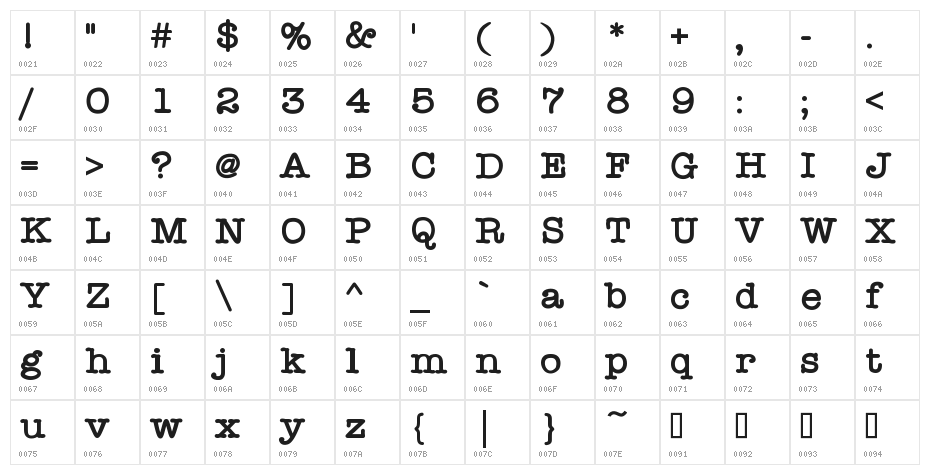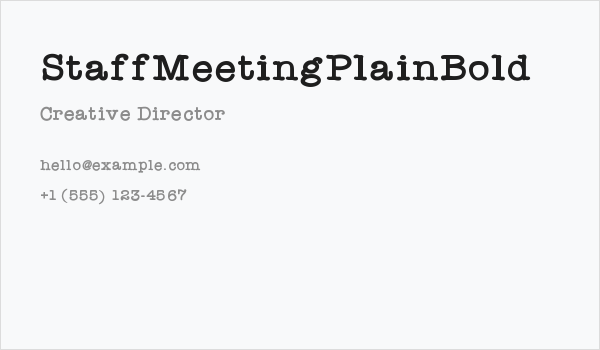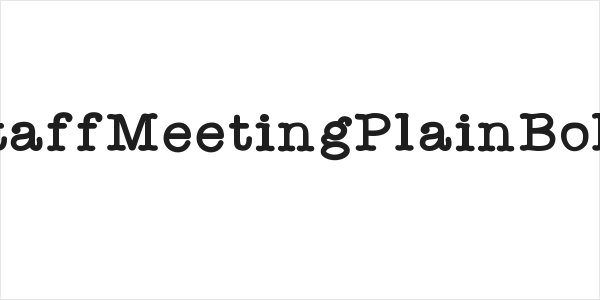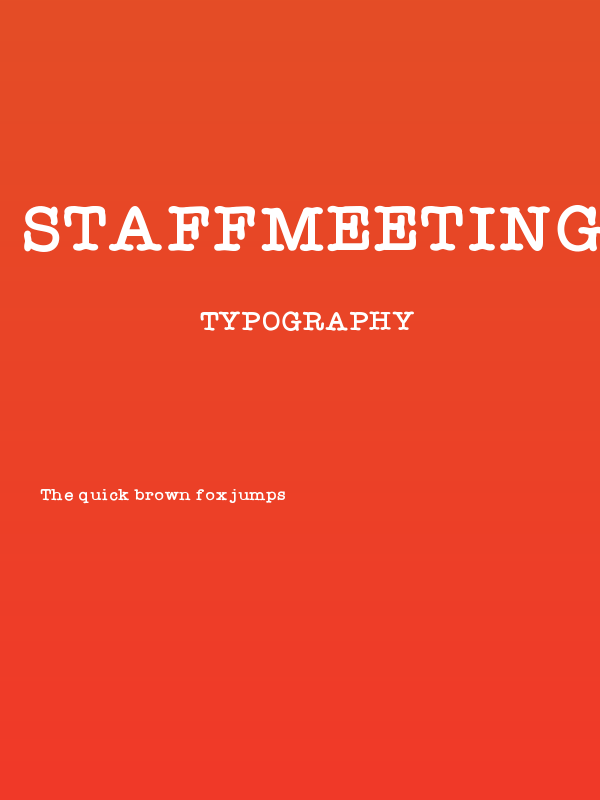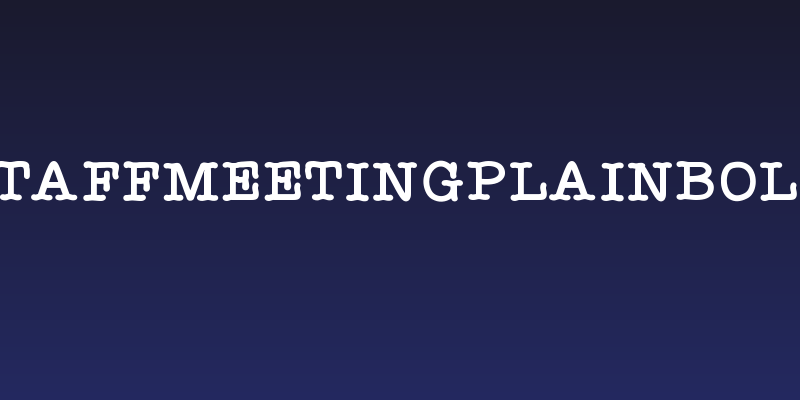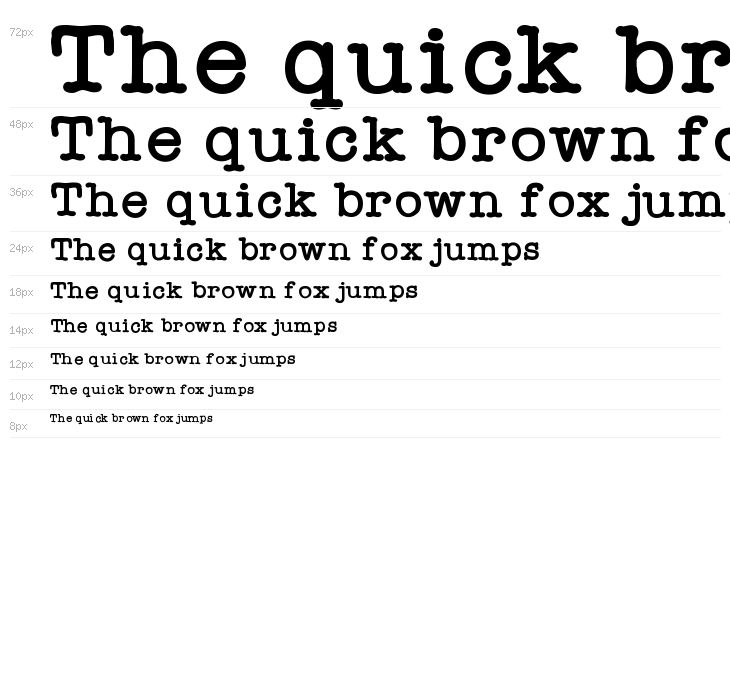
StaffMeetingPlainBold Font
StaffMeetingPlainBold Description
This font exhibits a bold and robust slab serif style, characterized by thick, block-like serifs that give it a strong and authoritative presence. The letters are evenly spaced, with a consistent stroke width that enhances readability. The uppercase and lowercase letters maintain a uniform appearance, while the numerals are clear and distinct. Special characters are well-defined, adding to the font's versatility. Its boldness makes it suitable for impactful headlines and titles, while its clarity ensures legibility in various contexts.
Overall StyleClassic
Proposed ProjectsIdeal for branding, posters, headlines, and any design requiring a bold, authoritative look.